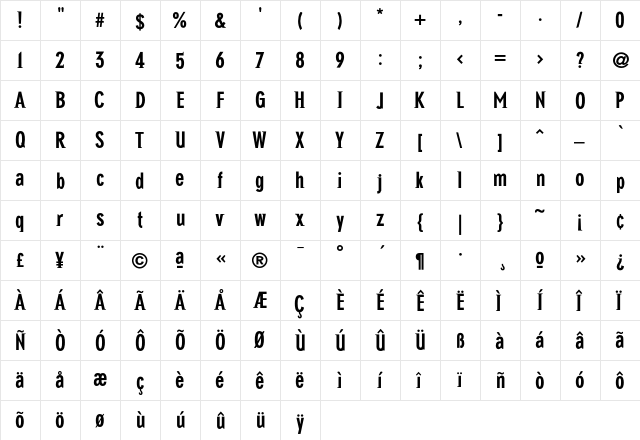
NewGlobal Bold
Design Context for NewGlobal Typeface
NewGlobal is a composed and adaptable typeface that performs quietly and consistently across a wide range of design contexts. Its bold stroke weight gives it real presence on the page.